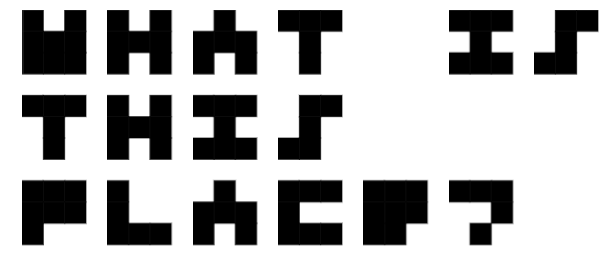
like a sci-fi mathy thing. i've been inspired to add it as environmental text on a ruined space ship or as on a computer terminal because it fits beautifully